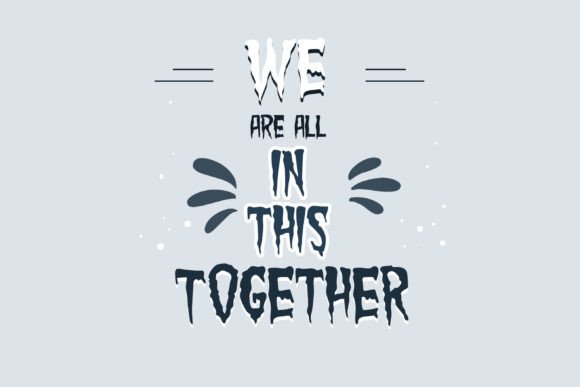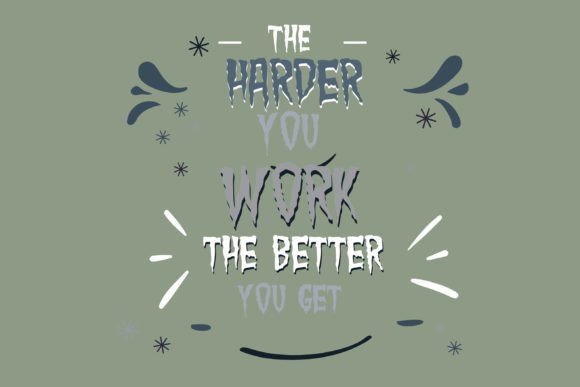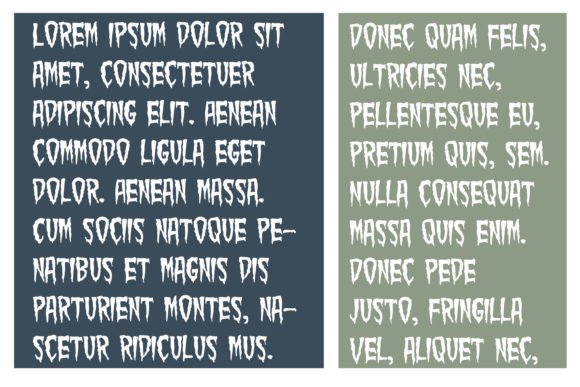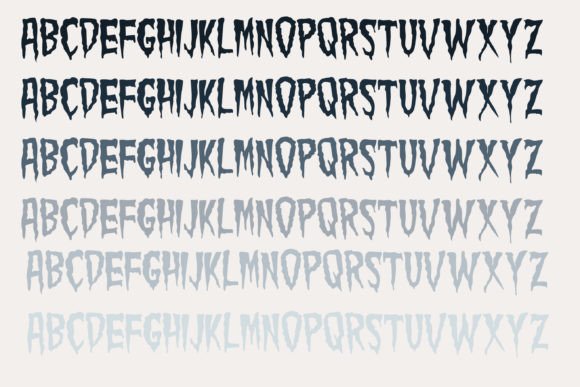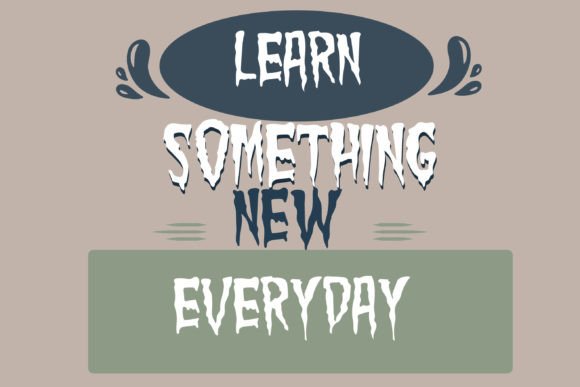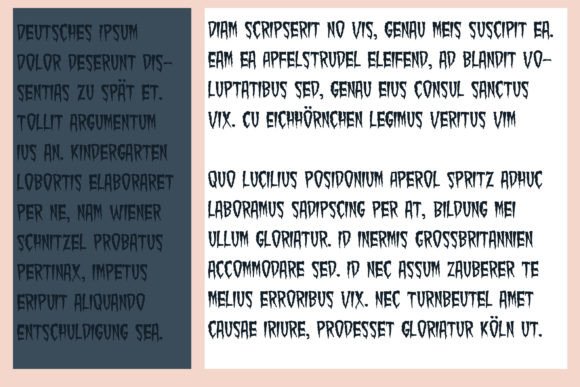
Macabre Font
About Macabre Font
**Introducing Macabre Handwritten Font: Evoke Haunting and Scary Vibes**
The “Macabre” handwritten font is designed to bring a haunting and eerie atmosphere to your creative projects. With its unique and spooky look, this font is perfect for various applications that require a chilling or scary aesthetic. Here are some creative ways to use “Macabre” in your designs:
1. **Horror Movie Titles:** Design spooky and atmospheric titles and credits for horror films and thrillers. “Macabre” sets the tone for a bone-chilling cinematic experience.
2. **Book Covers:** Create book covers for horror novels, ghost stories, or supernatural thrillers. “Macabre” adds an unsettling and suspenseful element to the design.
3. **Halloween Party Invitations:** Design invitations, flyers, and decorations for Halloween parties and events. “Macabre” enhances the eerie ambiance of your spooky celebrations.
4. **Haunted House Promotions:** Promote haunted houses, escape rooms, or haunted attractions with chilling graphics that feature “Macabre” typography.
5. **Gothic Art and Posters:** Craft gothic-style art prints and posters with cryptic quotes or dark themes. “Macabre” complements the gothic aesthetic.
6. **Metal Band Logos:** Design logos and branding materials for heavy metal bands with a dark and macabre image. “Macabre” matches the intensity of the music.
7. **Fantasy Novel Titles:** Create fantasy novel titles with a dark and mysterious twist. “Macabre” is perfect for fantasy worlds filled with secrets and shadows.
8. **Tattoo Designs:** Use “Macabre” for tattoo designs that incorporate eerie and unsettling imagery, such as skulls, ghosts, or horror icons.
9. **Escape Room Clues:** Design clues and puzzles for escape room games with a scary or suspenseful theme. “Macabre” adds to the mystery and tension.
10. **Podcast Covers:** Enhance podcast cover art for horror, suspense, or true crime podcasts. “Macabre” captures the essence of the genre.
11. **Gaming Graphics:** Create in-game titles, logos, and promotional materials for horror-themed video games. “Macabre” intensifies the gaming experience.
12. **Alternative Fashion Branding:** Use “Macabre” for branding materials and apparel designs for alternative fashion brands with a spooky edge.
13. **Dark Poetry and Literature:** Use “Macabre” to design covers for dark poetry collections, anthologies, or literary works with a haunting atmosphere.
14. **Creepy Art Exhibitions:** Promote art exhibitions or gallery openings with unsettling and mysterious visuals featuring “Macabre” typography.
15. **Mystery-Themed Parties:** Design posters, flyers, and invitations for mystery-themed parties or murder mystery events. “Macabre” adds intrigue.
“Macabre” is a font that infuses your designs with a spine-chilling and unsettling aura. Its handwritten style exudes an eerie and mysterious vibe, making it the perfect choice for conveying horror, suspense, and the supernatural. Whether you’re working on visuals for the entertainment industry, events, or personal artistic expressions, “Macabre” is ready to bring a haunting and scary atmosphere to your creative endeavors.